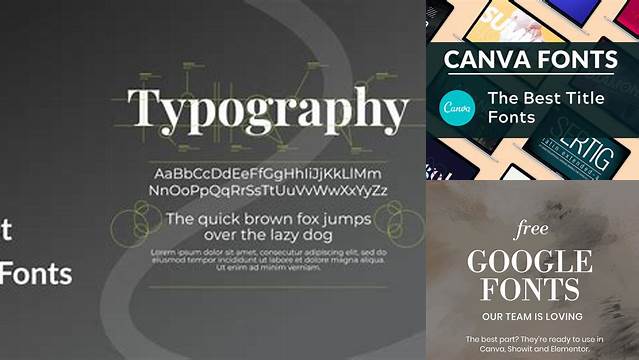
Best Title Fonts In Google Fonts
Are you on the hunt for the perfect title fonts to make your projects pop? Look no further, because we're diving headfirst into the awesome world of Google Fonts! Finding the right font can be a game-changer, whether you're designing a website, crafting a logo, or putting together a presentation. With so many choices out there, it can feel a little overwhelming. But don't sweat it, we're going to break down some of the best title fonts available on Google Fonts and show you how to pick the ones that'll make your text shine. We'll explore fonts that are bold, elegant, modern, and everything in between, ensuring that you find the ideal match for your creative vision. Typography is a powerful tool in design, and selecting the right title fonts is a crucial first step in communicating your message effectively. It sets the tone, grabs attention, and enhances the overall aesthetic appeal of your project. Let's get started, and discover how to elevate your designs with the perfect title fonts!
Why Title Fonts Matter: Making a Great First Impression
First impressions matter, right? When it comes to your projects, the title font is often the first thing people see. It's like the handshake of your design – it sets the tone and gives viewers a glimpse of what's to come. Think about it: a strong, well-chosen title font can instantly grab attention, convey the message, and entice people to read more. But a poor choice? Well, it could lead to your audience bouncing away before they even get started. The right title font not only enhances the visual appeal but also helps establish your brand's personality. Whether you're aiming for a modern, sleek look, a classic, elegant vibe, or something fun and playful, the title font plays a huge role in communicating that to your audience. Title fonts act as visual cues, guiding the reader's eye and creating a hierarchy of information. They help you highlight the most important aspects of your content. And also they make it easy for viewers to understand what they're looking at. So, choosing the correct title font is a critical aspect of effective design. It's a step that can significantly impact the success of your projects. It's all about creating a positive first impression and ensuring your message is communicated clearly and effectively. You want your audience to be immediately drawn in and curious about what you have to offer. That's where the magic of the title font comes in. This is where the beauty of typography really shines.
Exploring Top Title Font Categories in Google Fonts
Now, let's jump into the exciting part! Google Fonts is a treasure trove of typography goodness, and we're going to explore some of the top title font categories that will help you create eye-catching designs. This is a fantastic resource for designers and creators of all levels, providing an array of options that are accessible, versatile, and easy to implement in your projects. We'll explore several classifications, from bold and impactful display fonts to elegant and refined serifs, ensuring you discover the perfect fit for your style. You'll discover the power of using fonts as a tool to visually communicate your brand’s essence. There's a font for every mood, style, and project. We're looking to help you select title fonts that convey the appropriate tone for your project. Whether you want to establish a sense of authority, excitement, or creativity, there is a font waiting for you in the extensive Google Fonts library.
Display Fonts: Making a Bold Statement
Want to make a bold statement with your titles? Display fonts are your best friends! They're designed to grab attention, with unique and often oversized letterforms. Display fonts are perfect for headlines, logos, and any title that needs to stand out from the crowd. They're often more decorative and expressive than standard fonts, allowing you to inject personality into your designs. Some popular display fonts on Google Fonts include Bebas Neue, Anton, and Raleway. Bebas Neue is a clean, modern sans-serif that’s great for making a powerful statement, while Anton is a bold, condensed font that screams authority. Raleway offers a wide range of weights, making it incredibly versatile for various design applications. Display fonts are not always the most readable in large blocks of text. So, they are often best used in headlines and short titles. By using display fonts thoughtfully, you can create visually stunning titles that make your content pop.
Serif Fonts: Classic Elegance for Titles
For a touch of classic elegance and sophistication, look no further than serif fonts! Serif fonts have those little decorative strokes (serifs) at the ends of the letters, giving them a timeless and refined look. They’re great for titles that need to convey a sense of tradition, trustworthiness, or high quality. Serif fonts are a great option for projects with a classic or vintage aesthetic. Think about book titles, magazine headlines, or any design where you want to convey a sense of prestige. Some beloved serif fonts available on Google Fonts include Playfair Display, Merriweather, and Lora. Playfair Display is a high-contrast font that exudes elegance. Merriweather is a sturdy, readable font that works well for both titles and body text. Lora provides a balanced combination of readability and style. Choosing the right serif font can elevate your titles, adding a touch of sophistication that makes your designs stand out. Experiment with different serifs to find the one that suits your project perfectly. Then create titles that captivate your audience with a sense of classic allure and refinement.
Sans-Serif Fonts: Modern and Versatile Title Choices
If you're after a modern, clean look, then sans-serif fonts are the way to go! Sans-serif fonts lack those little serifs, resulting in a sleek and minimalist aesthetic that is perfect for titles. Their simplicity makes them incredibly versatile, working well in a variety of contexts, from websites to print materials. Sans-serif fonts are often easy to read, making them ideal for digital interfaces and headings that require clear communication. They're the go-to choice for contemporary designs that prioritize clarity and readability. Popular sans-serif fonts on Google Fonts include Open Sans, Roboto, and Montserrat. Open Sans is known for its excellent readability. Roboto is a functional and versatile font. Montserrat is a geometric font that's ideal for modern designs. Sans-serif fonts give you clean, uncluttered title options. They are suitable for a wide range of projects. By understanding the qualities of sans-serif fonts, you can create visually striking titles that communicate a modern and stylish aesthetic.
Choosing the Right Title Font: Tips for Success
Okay, now that we've covered some of the best title font categories, let's talk about how to choose the right one for your project. The right choice is key to communicating your message effectively and making a great impression on your audience. Here are a few things to keep in mind when selecting your title font:
Consider Your Brand's Personality
What vibe are you going for? Is your brand playful, serious, modern, or traditional? Your title font should align with your brand's personality. For a playful brand, a fun and quirky display font might be the way to go. If you’re aiming for a professional image, a clean sans-serif or an elegant serif font might be better. Think about the emotional response you want to evoke in your audience. Make sure the font reflects the overall aesthetic and tone of your brand.
Think About Readability
No matter how cool a font looks, readability is key, especially for titles. You want your audience to quickly grasp the content. Choose fonts that are easy to read at various sizes and on different devices. Ensure the font is clear and easy to understand. Stay away from overly complex or stylized fonts if readability is a top priority. Also, consider the font's weight and spacing. This can influence how easily the text is read. Proper font selection is essential for effective communication.
Pair Fonts Wisely
Pairing fonts can be tricky, but when done right, it can elevate your designs. When choosing fonts, select those that complement each other. Use one font for the title and a different one for the body text. Make sure the fonts contrast in style but also work well together. Try to create a visual balance. Avoid pairing fonts that are too similar. Instead, choose ones with distinct differences to add interest and visual appeal. Think about a serif title font with a sans-serif body font. Experiment and see what works best for your design.
Conclusion: Elevate Your Designs with the Right Title Fonts
So, there you have it, guys! Choosing the right title fonts is an art and a science. It's about understanding your brand's personality, prioritizing readability, and experimenting until you find the perfect match. The best title fonts can transform your projects from good to great. By taking the time to choose the right fonts, you can capture the attention of your audience. You can also create a lasting impression, and communicate your message effectively. Now go forth and explore the amazing world of Google Fonts. You’ll find the perfect fonts to make your titles shine. Happy designing!